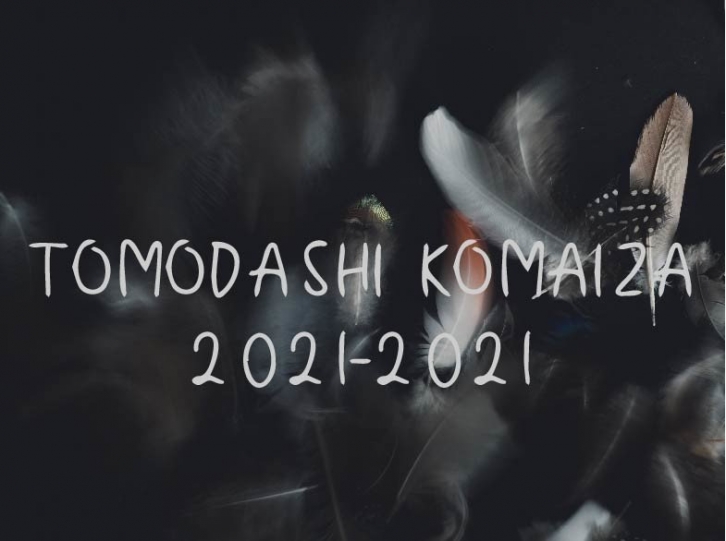
Tomodashi Komaiza is a fun and quirky handwritten font. It has friendly characters that seem authentic and natural, perfect for almost any project that needs a handwritten touch!